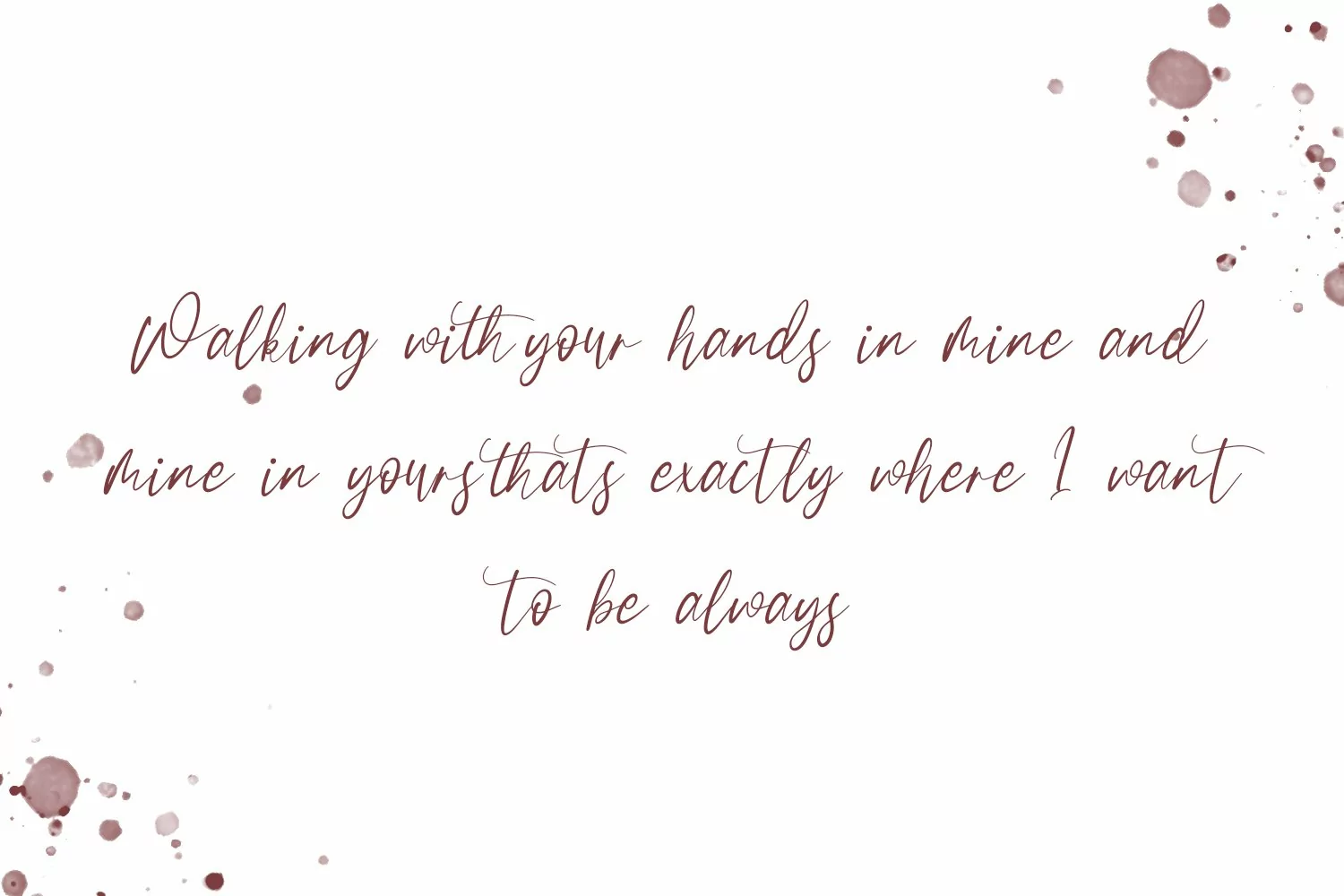
Scottsdale - Script Font that contain lowercase, uppercase, symbol, and also support multi language. There’s a lot ligatures in this font. This Font also comes with ligatures, alternates and many more. this font suitable for fashion, branding, catalog and other design what you want.
Scottsdale